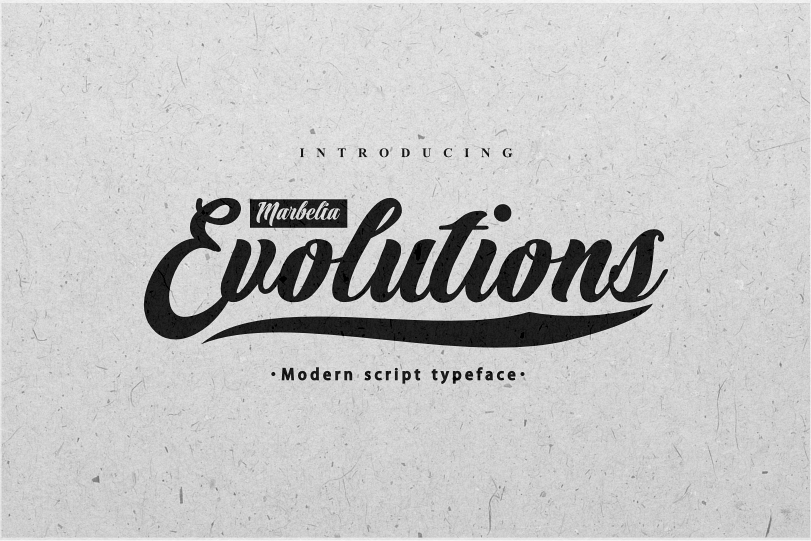
Marbelia Evolutions
Marbelia Evolutions is font specifically designed with a variety of alternate, ideal for posters, t shirts, typography, writing etc.
Marbelia Features :
Uppercash
Lowercash
Alternate glyph
Numering
Punctuation